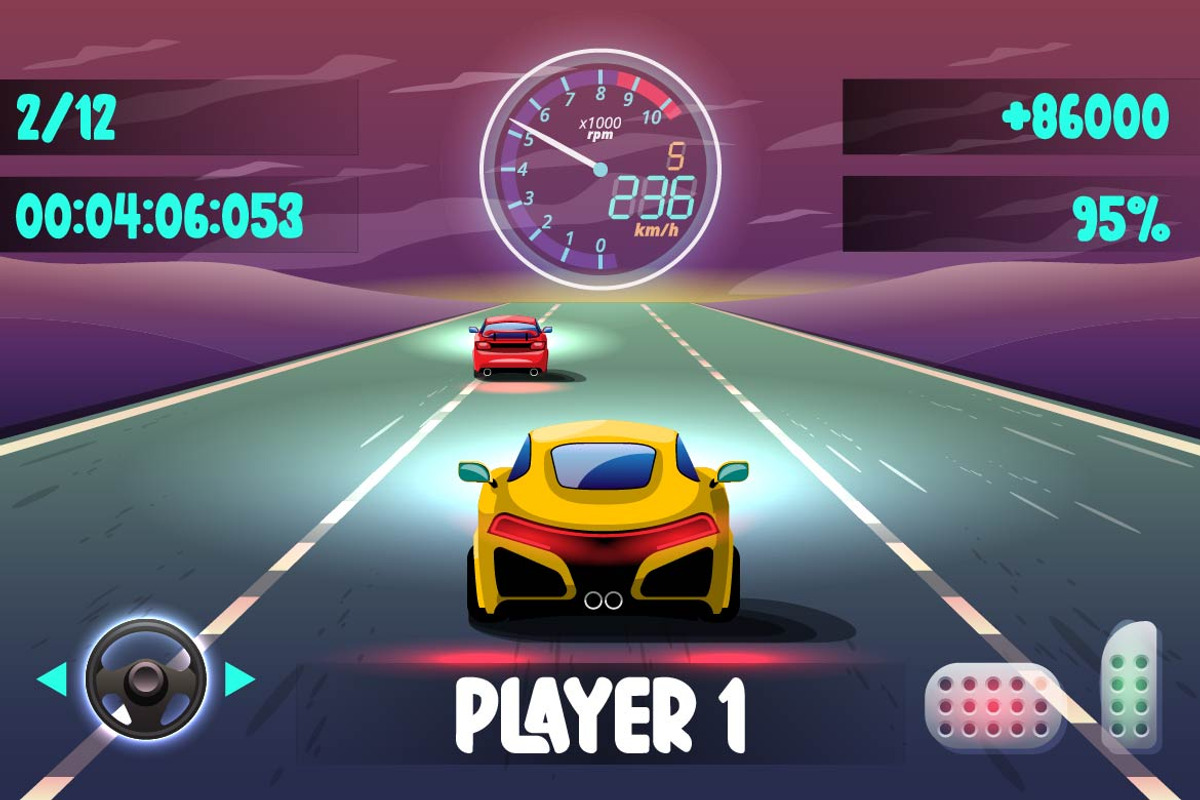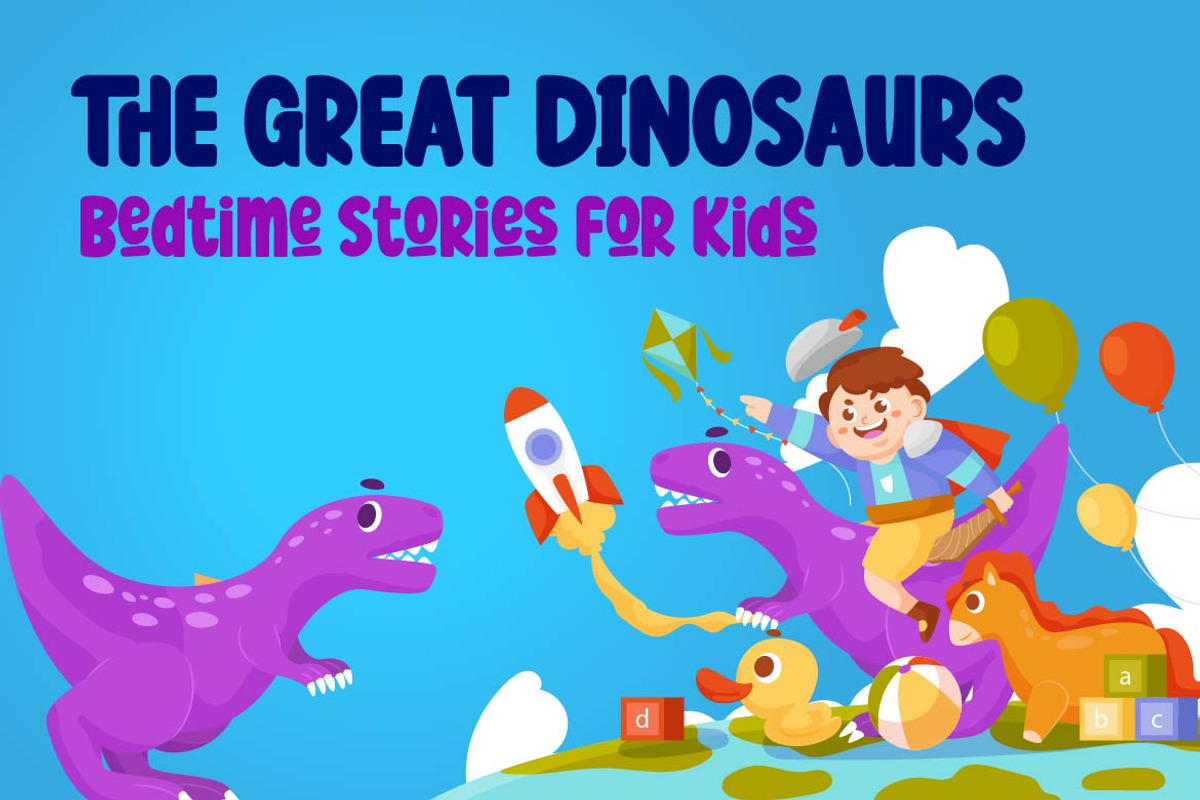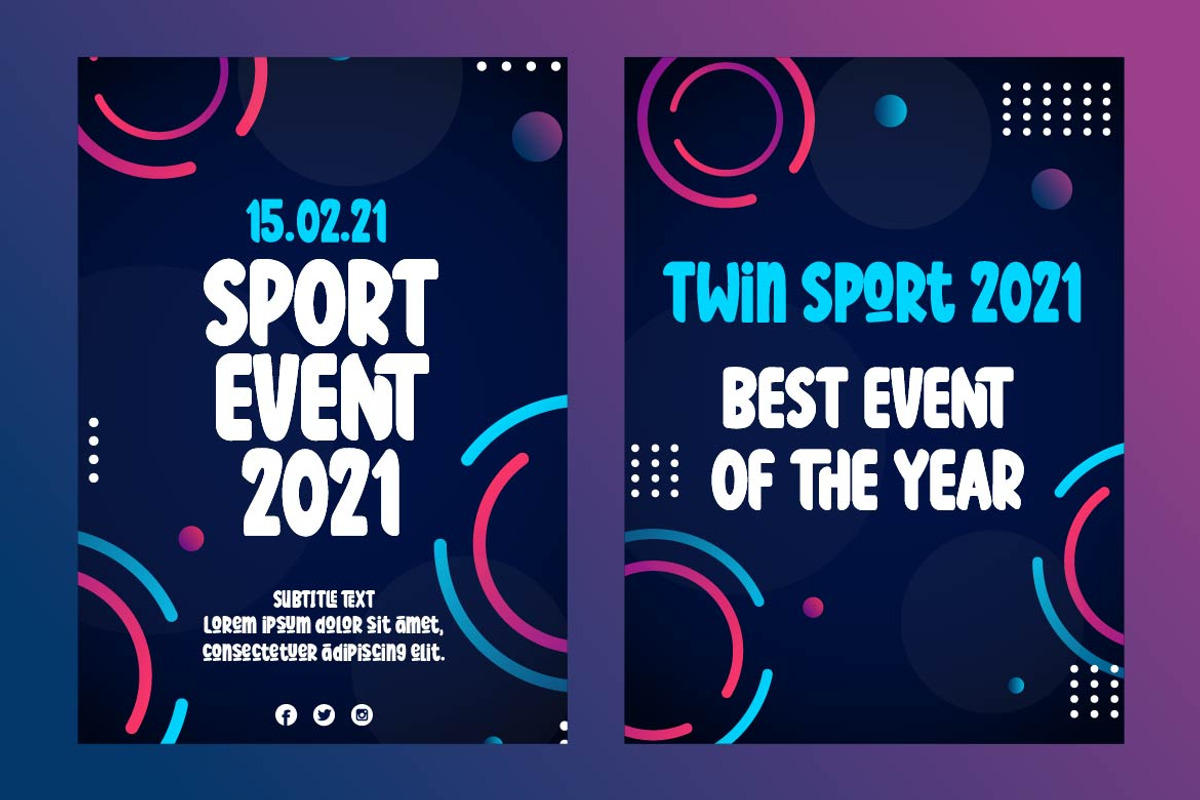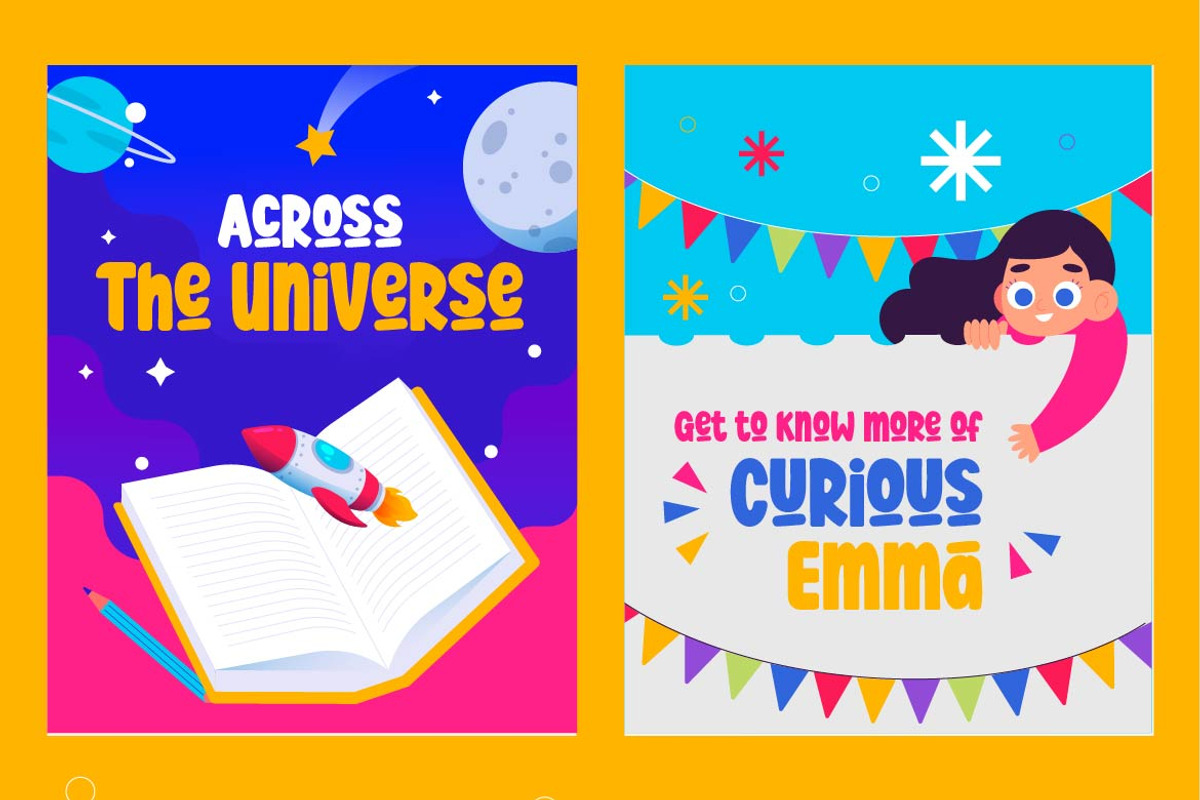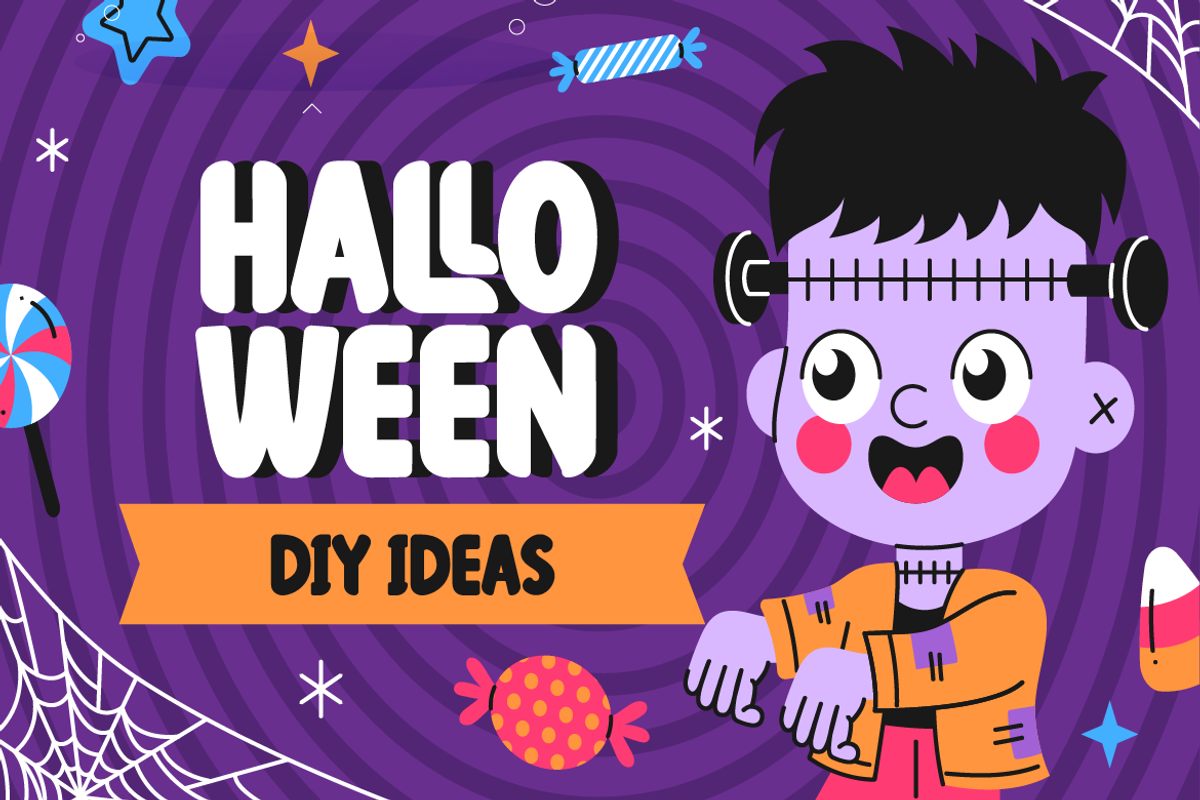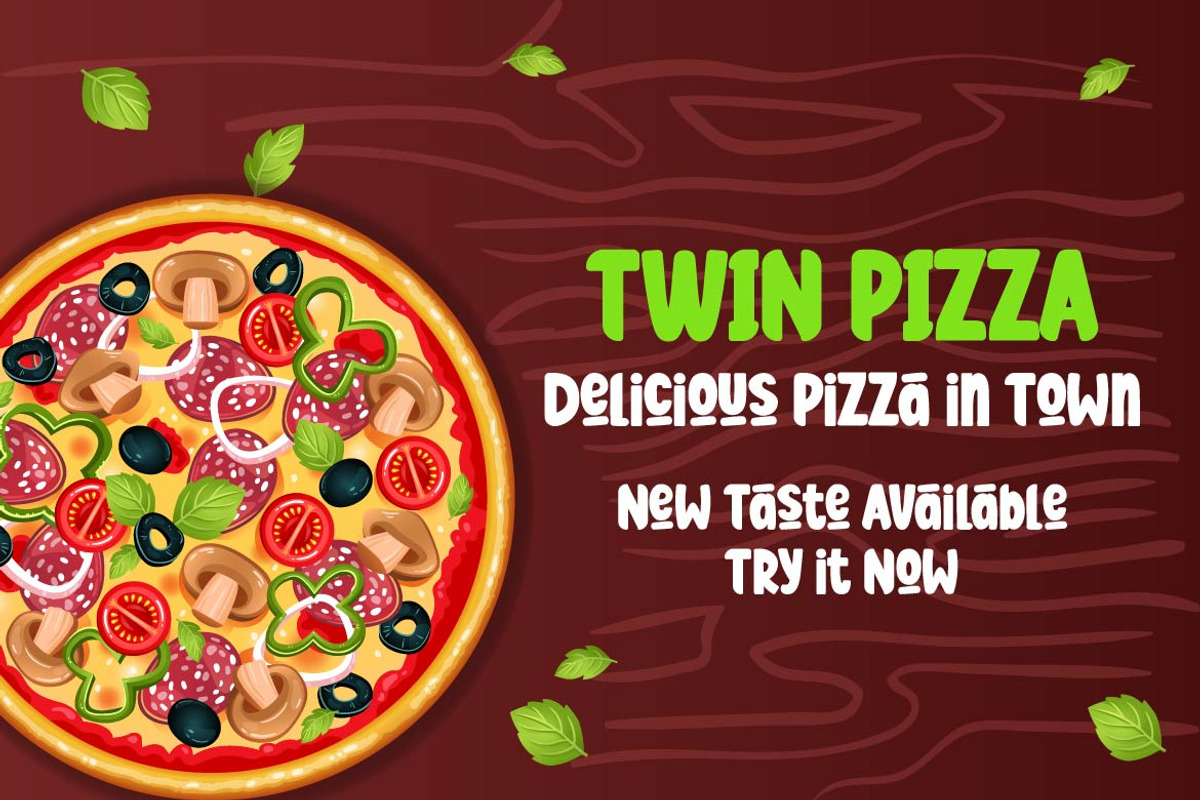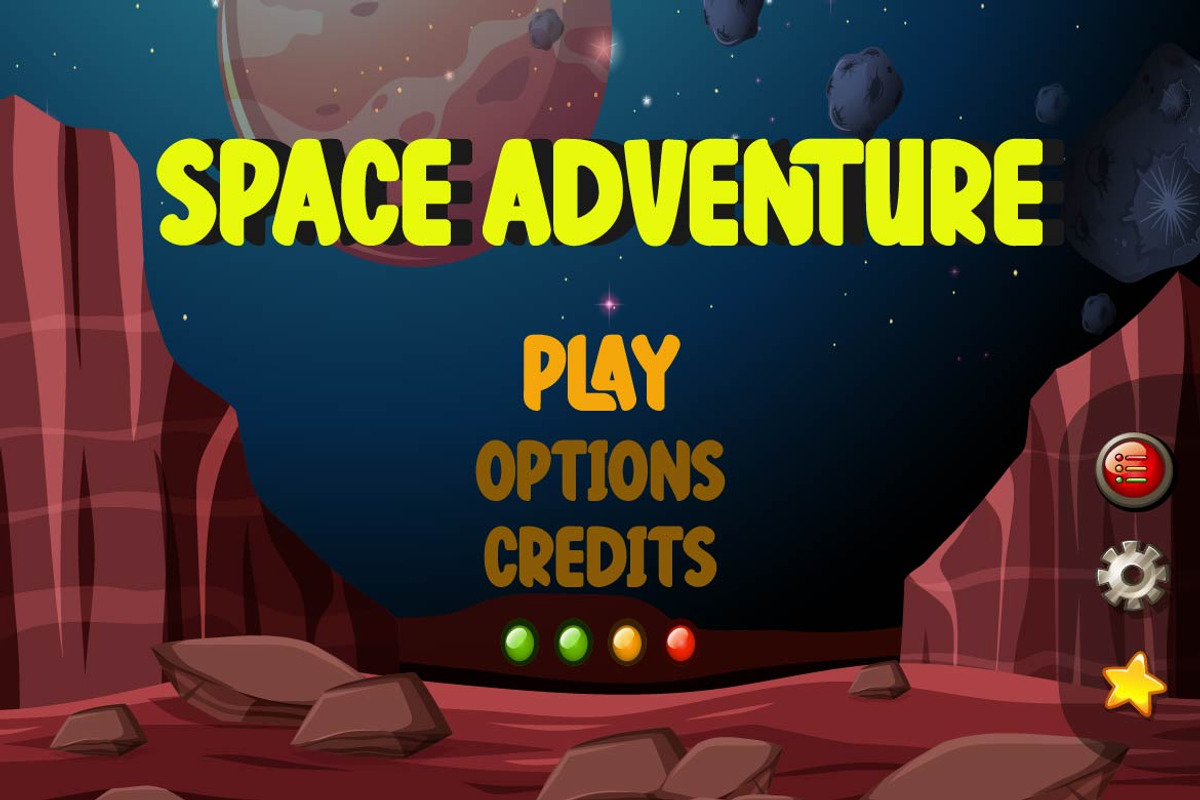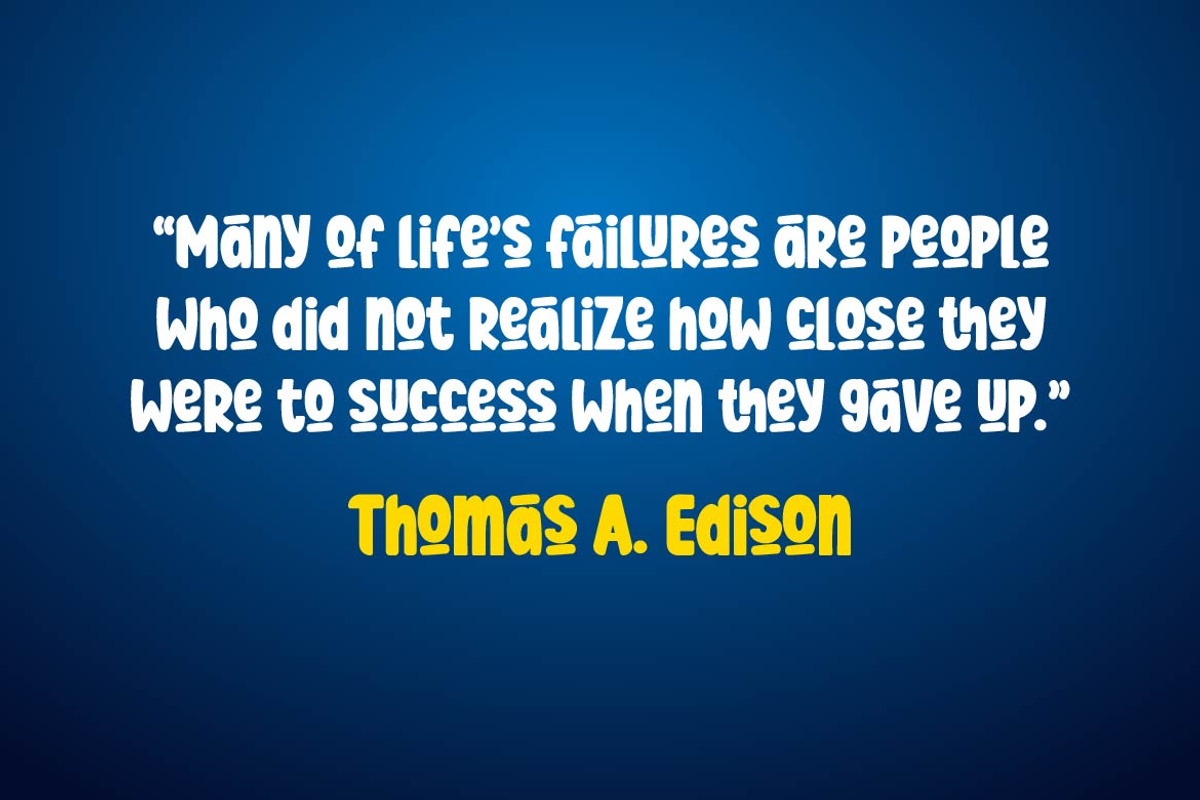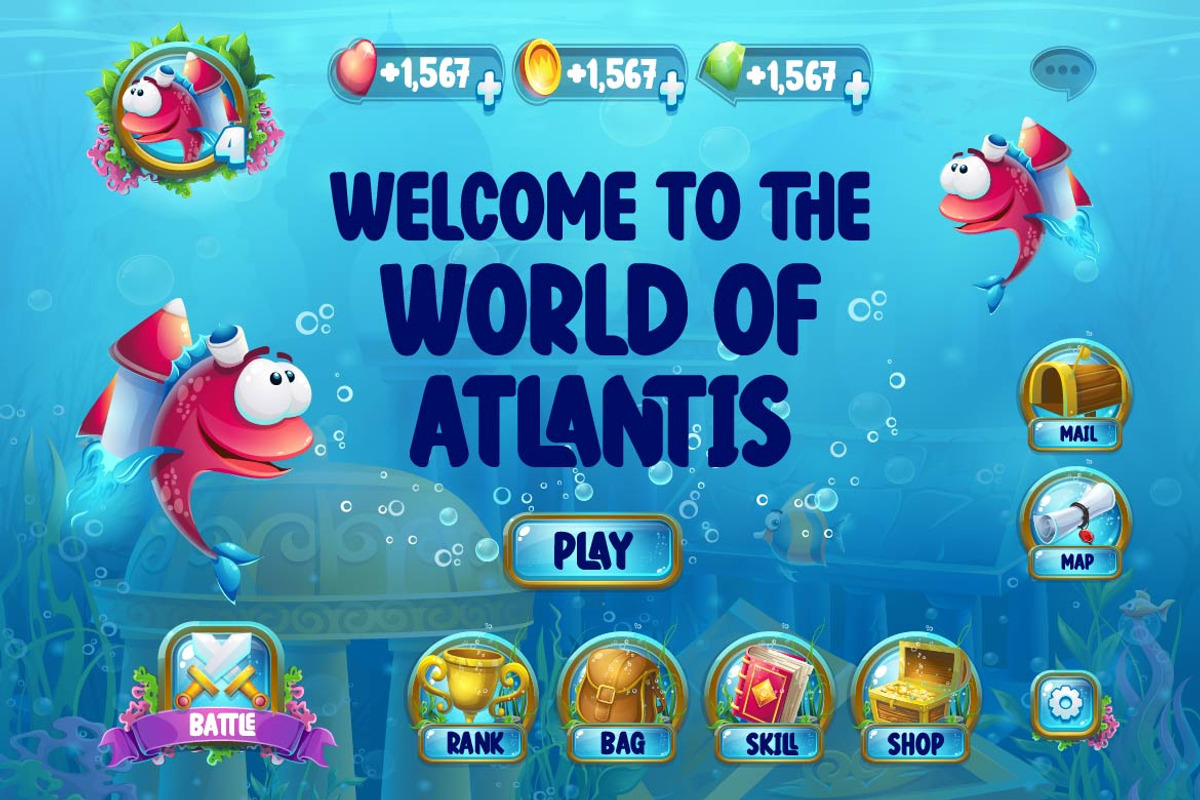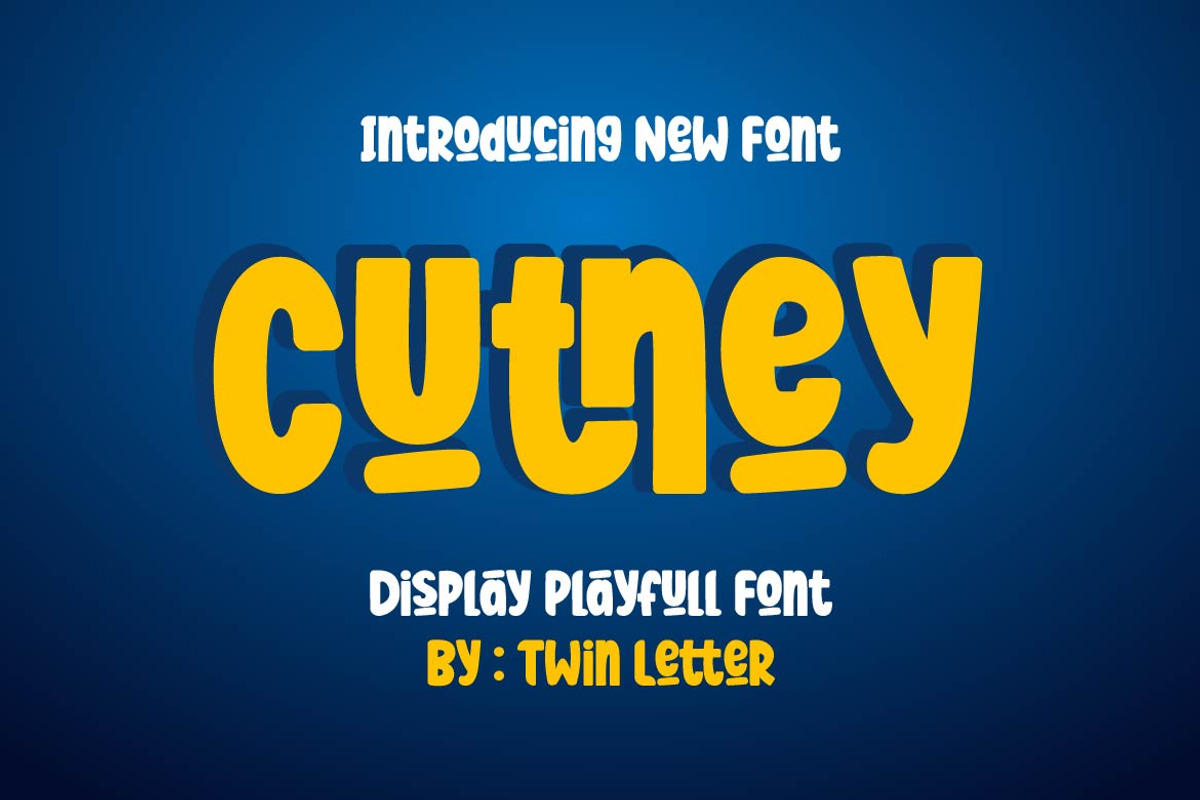
Cutney
Introducing Cutney, a display typeface that has been meticulously developed to give the idea of a display that is fun, easy, and versatile to use. Use this font for your outstanding project, and you and your audience will be ecstatic to witness a stunning, proportionate presentation. Many viewers were taken aback, leaving you with a fantastic opportunity.
This font is perfect for games, sporting events, branding, banners, posters, movie titles, book titles, quotes, logotypes, and more.
of course, your various design projects will be perfect and extraordinary if you use this font because this font is equipped with a complimentary font family, both for titles and subtitles and sentence text, start using our fonts for your amazing projects.